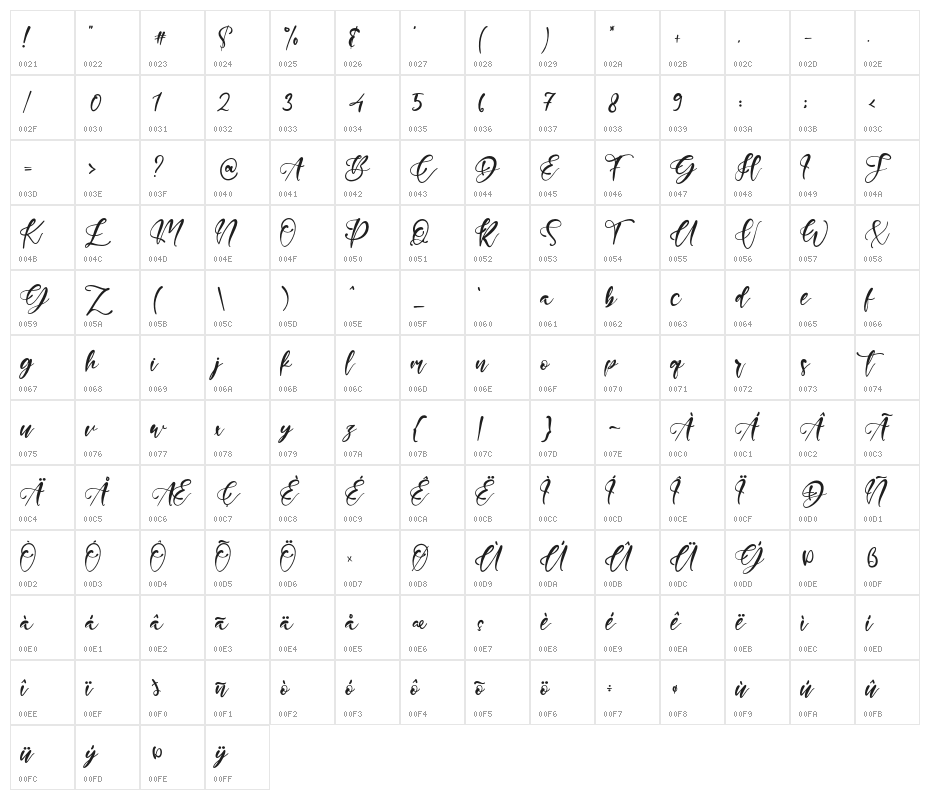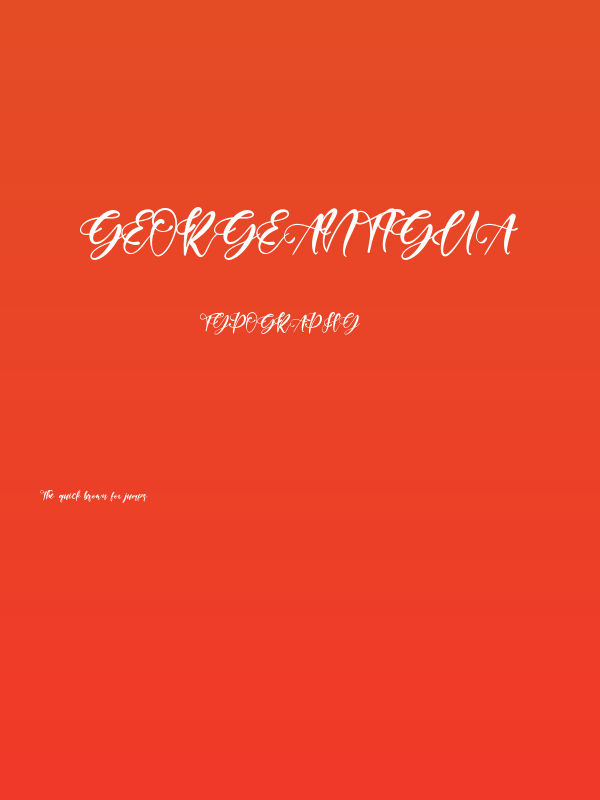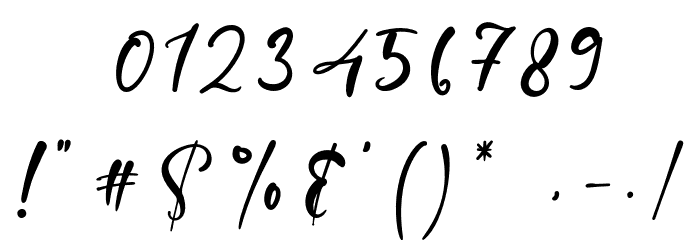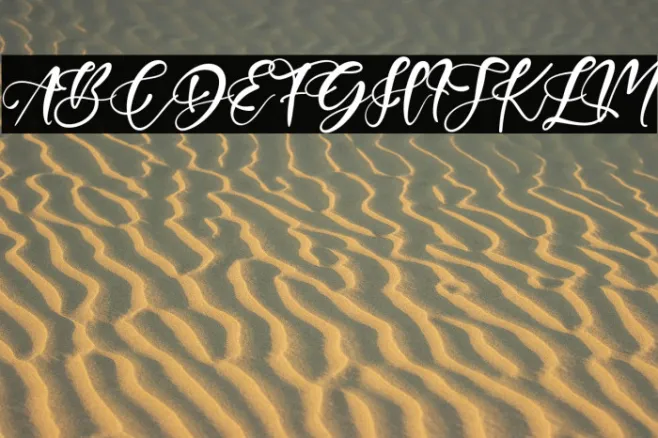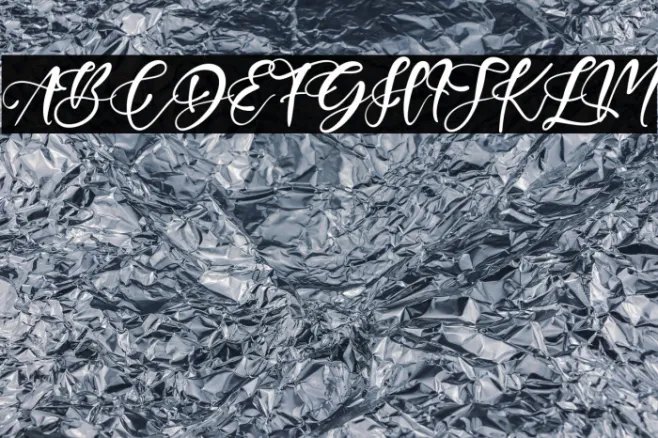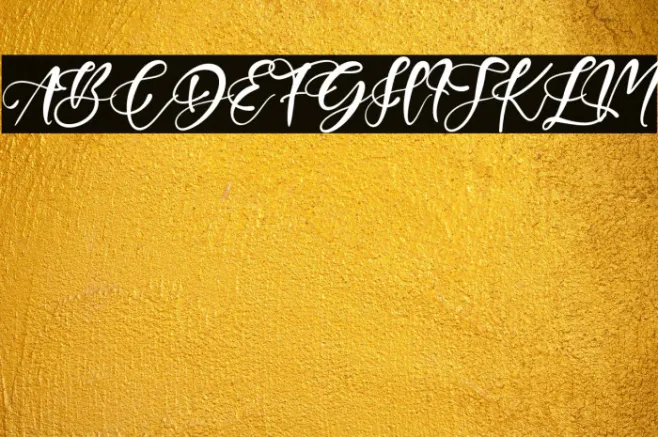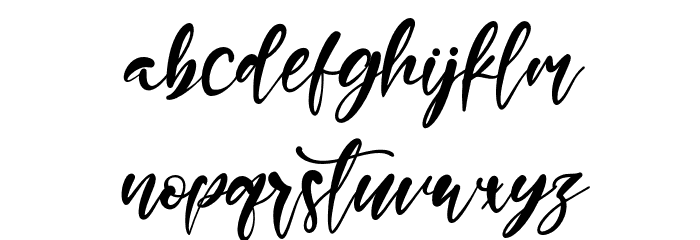
GeorgeAntigua Font
This font exudes elegance and sophistication with its flowing, cursive style. The uppercase letters are intricately designed with loops and flourishes, giving them a decorative and artistic appearance. The lowercase letters maintain a consistent flow, enhancing readability while retaining a stylish flair. Numbers are bold and clear, complementing the overall aesthetic. Special characters are thoughtfully crafted to match the font's elegant theme. This font is perfect for projects that require a touch of class and creativity, such as invitations, branding, and decorative signage.
| Use Case | Logos, Invitations, Decorative Text |
| Proposed Projects | Ideal for wedding invitations, luxury branding, decorative signage, and artistic projects. |